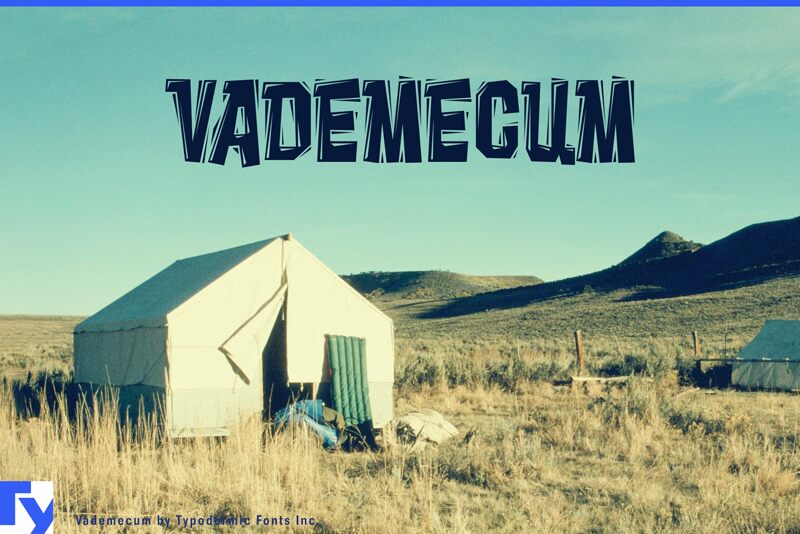
Vademecum-Regular
Vademecum, designed by Ray Larabie, stands out as a distinctive display font with its unique distorted style and bold, condensed weight. Crafted to mimic the traditional linocut technique but with a modern twist of being "mouse-cut," Vademecum captures an aesthetic that is both raw and digital. The font's assertive angles and chiseled edges lend it an edgy personality, making it an ideal choice for projects requiring a touch of rebellious flair.
Its stylized appearance carries a tactile quality that evokes handcrafted artistry while maintaining the precision of computer-generated design. Vademecum's character is unmistakably suited for attention-grabbing headlines, standout branding, or any creative endeavor that desires to make a strong visual statement. This font invites designers to leverage its striking presence across various mediums from print to digital landscapes.